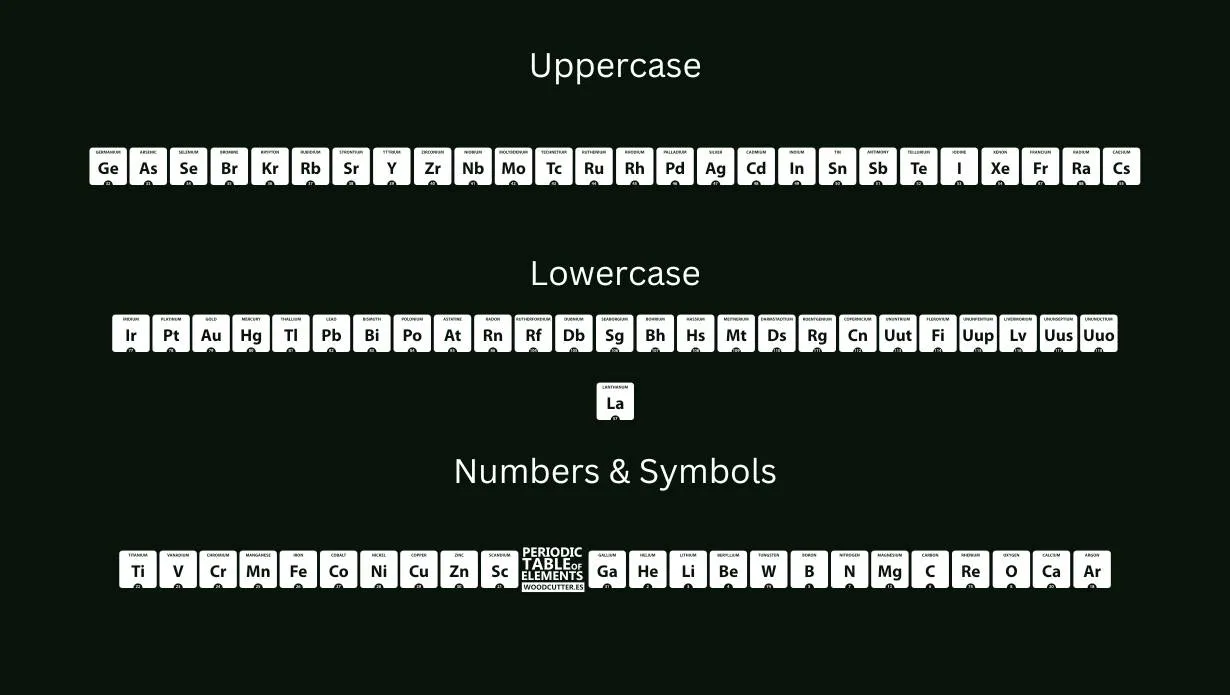
The Periodic Table of Elements Font has a scientific and educational vibe. Its clean and structured letters resemble elements in a table. This font is typically available in TTF and OTF file formats, ensuring accessibility in different design software.
It’s often used in educational materials or scientific publications, evoking a feeling of accuracy and organization. Its clear appearance aids readability, making the text look systematic and informative. The crazy crow font offers a comparable style and characters, making it a suitable substitute for the font mentioned.